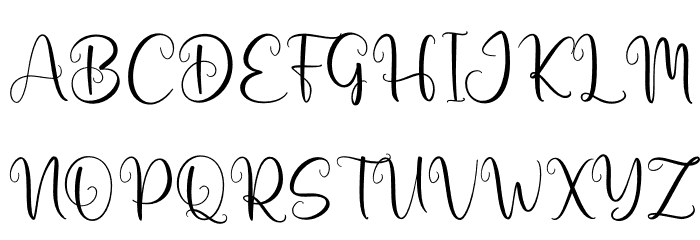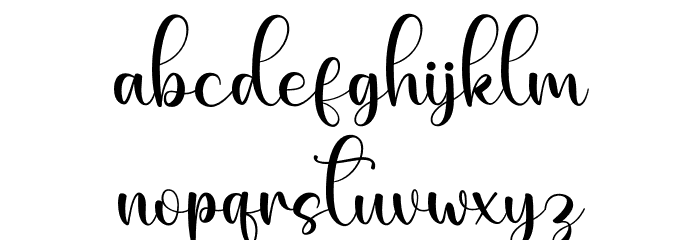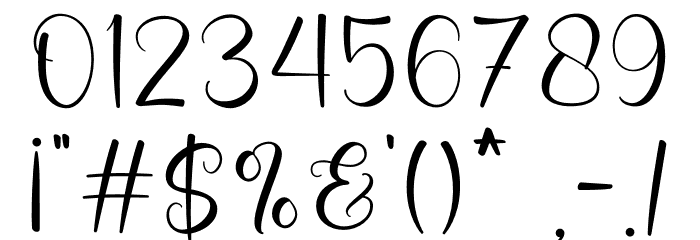
Melody Font
A decorative script font with elegant, flowing lines and a handwritten style, featuring loops and swashes.
Elegant, decorative script font with flowing lines.
- Font: Melody
- Proposed Projects: Invitations, greeting cards, logos, branding.
- Category: Script
- Use Case: Logos, Invitations, Decorative text